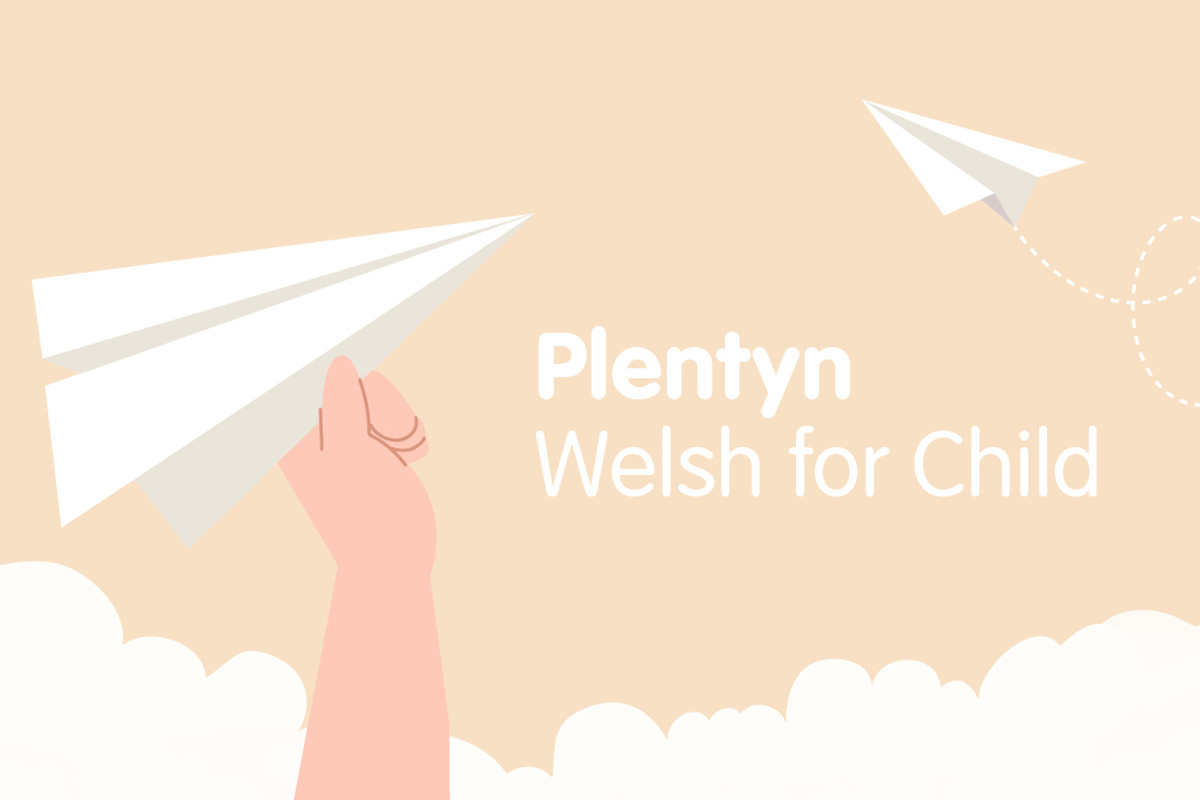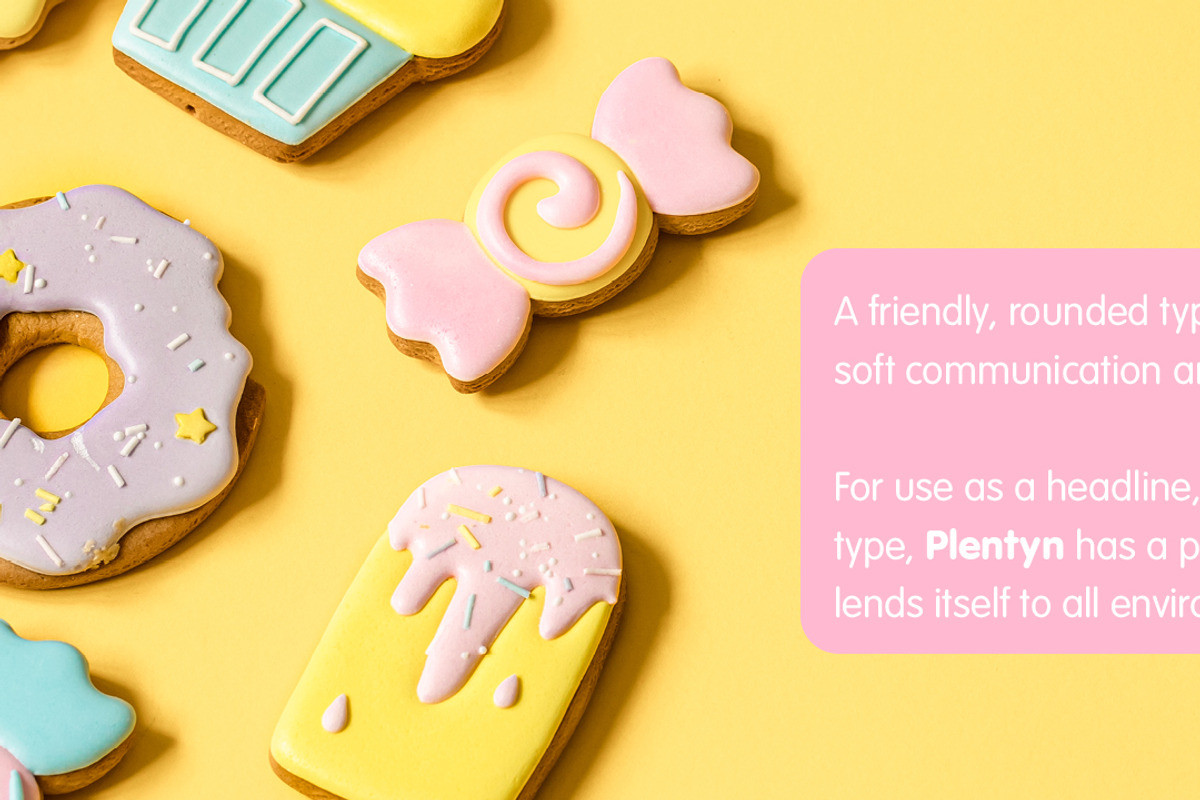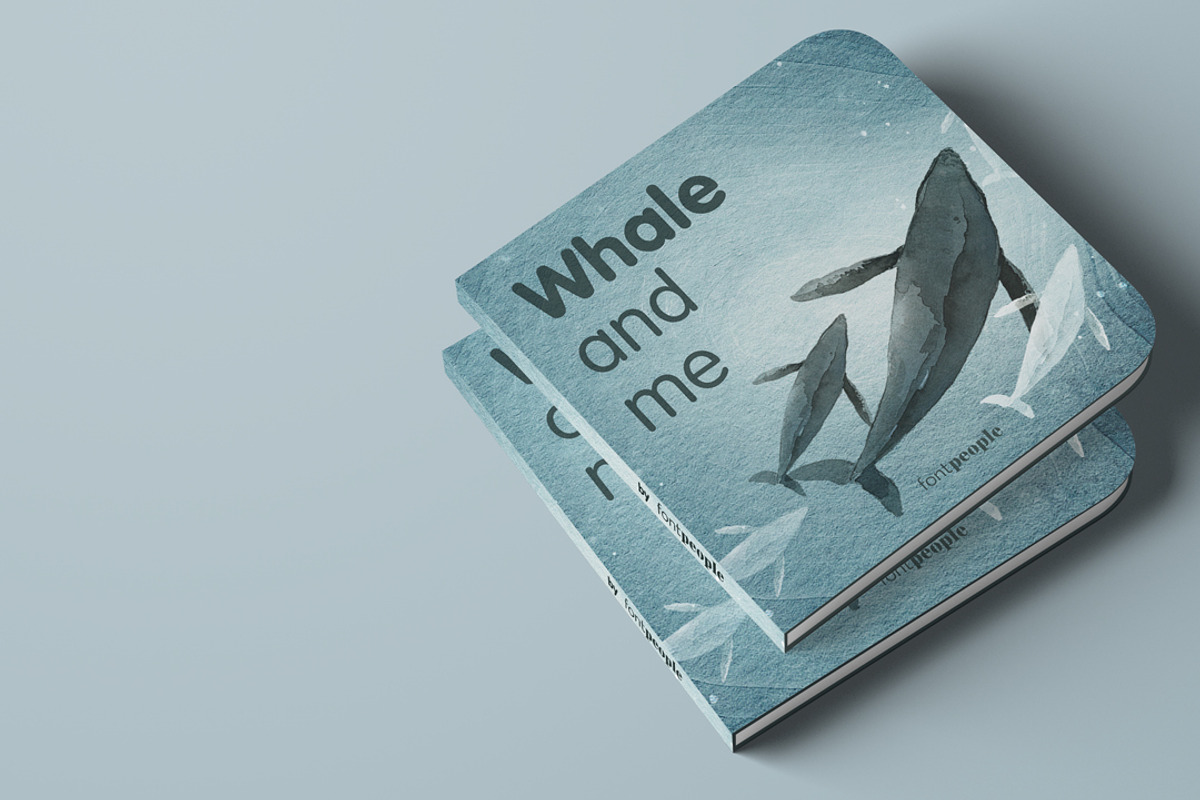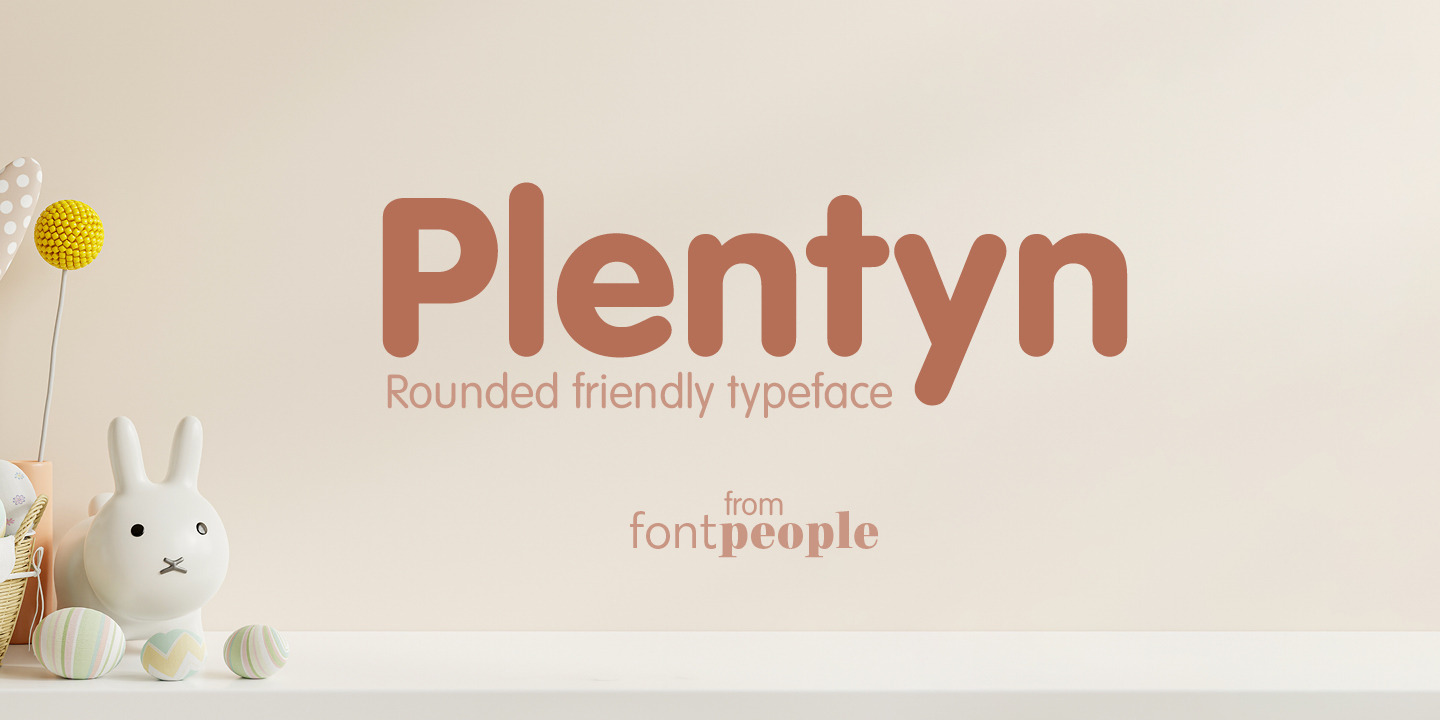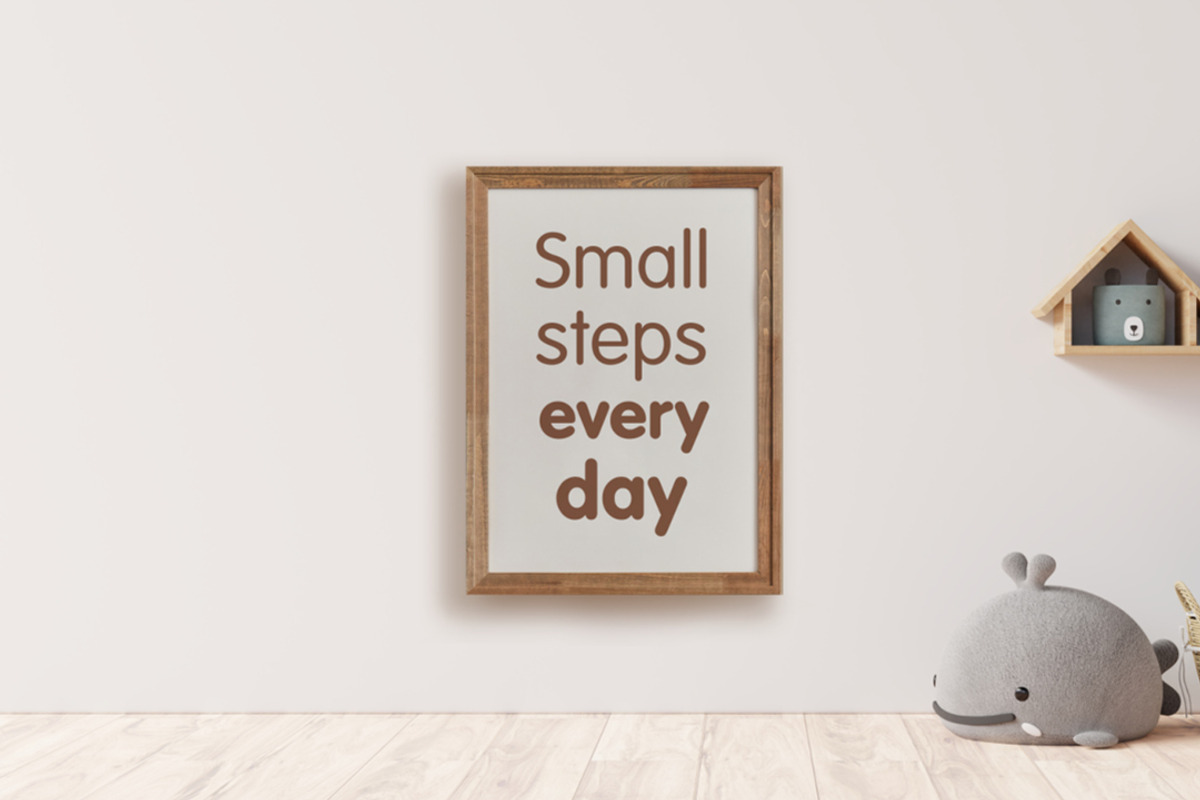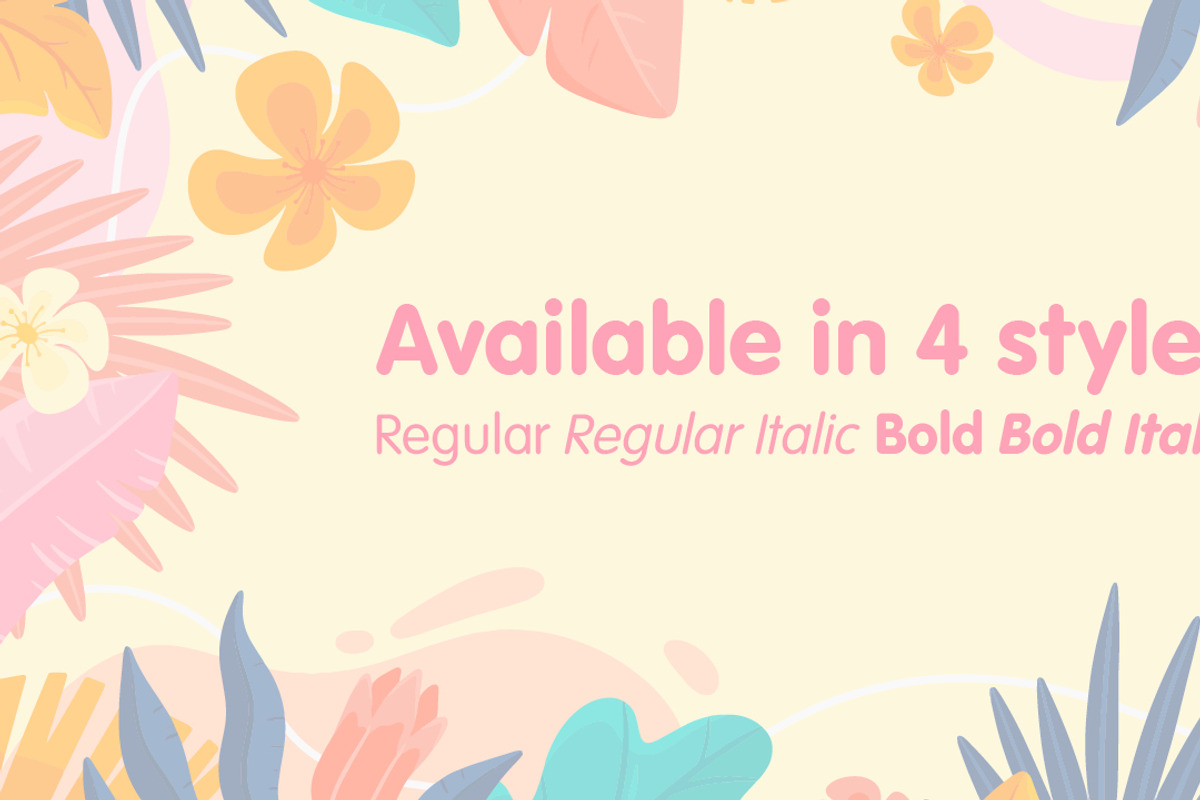
Plentyn font family by FontPeople
Plentyn: Welsh for Child. A friendly, rounded typeface for gentle, soft communication and branding.
For use as a headline, text or logo type, Plentyn has a playful quality that lends itself to all environments.